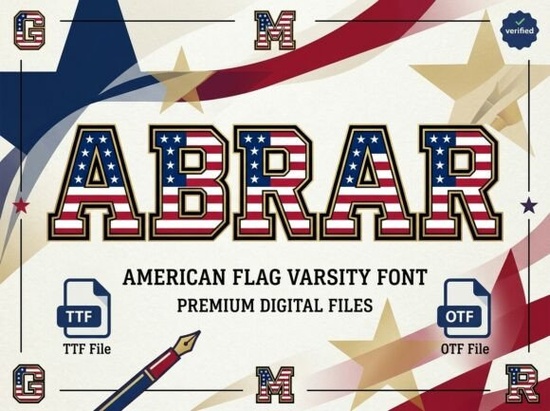
If you're looking for a bold, patriotic font that works well on t-shirts, banners, or event posters especially around the Fourth of July or veteran appreciation campaigns you’ll want to take a closer look at Abrar Font. It’s not just another blocky varsity typeface. What sets it apart is how the American flag pattern is thoughtfully built into each letterform not as a background overlay or clipart effect, but as part of the actual glyph design. That means clean scaling, crisp edges at any size, and no extra layers to manage in your design software.
When does Abrar Font work best?
Abrar shines where clarity and character matter at a glance: team jerseys, school spirit gear, military appreciation flyers, and small-batch apparel for local events. Because it’s a heavy-weight display font, it’s not meant for body text or long paragraphs but it holds up extremely well on fabric prints, vinyl decals, and large-format posters. Designers using it in Canva, Adobe Illustrator, or Cricut Design Space report smooth kerning and consistent spacing right out of the box.
You’ll also find it pairs naturally with simpler sans-serif fonts for supporting text think pairing Abrar for a headline like “USA Strong” with a clean, neutral font for event details underneath. Its athletic structure echoes classic college mascot fonts, but with a distinct national theme. If you’ve used fonts like the mascot college outline font, you’ll recognize the same confident, grounded rhythm but Abrar adds layered visual interest without sacrificing legibility.
How is it different from other patriotic or varsity fonts?
Many “flag-themed” fonts rely on textures, overlays, or clipart-style stars and stripes applied after the fact. Abrar avoids that. The flag motif is structural not decorative. Each capital A, B, R, and so on includes subtle red-and-blue stripe integration within the strokes themselves. That makes it more versatile for print-on-demand platforms where layered effects often don’t translate cleanly across garment types or mockup previews.
It’s also more intentional than general-purpose bold fonts those tend to be neutral or abstract, while Abrar carries clear thematic weight. And unlike distressed or weathered fonts (like those in our distressed creative font collection), Abrar feels strong and purposeful not worn or ironic. That matters when designing for veterans’ groups, youth sports leagues, or community parades where tone and respect are central.
If you’ve worked with cowboy varsity font before, you’ll notice Abrar shares that sturdy, no-nonsense silhouette but swaps western motifs for patriotic ones. Both are display fonts first, meant to anchor a design, not fade into the background.
Who uses Abrar Font and why?
Small businesses selling holiday merchandise often pick Abrar early in their seasonal planning. It converts well on product thumbnails because the flag detail reads clearly even at smaller sizes. Crafters making iron-on transfers appreciate how cleanly the letters cut on vinyl no jagged edges or thin interior lines that might lift during weeding.
Print-on-demand sellers tell us they use it most for Fourth of July collections, but also year-round for veteran-owned business branding or high school ROTC materials. One designer shared that she combined Abrar with simple vector eagles and minimal color palettes (just red, white, navy, and off-white) to keep designs scalable across mugs, tote bags, and stickers without needing separate versions for each product.
- Test spacing: While kerning is well-tuned, some combinations (like “AV” or “RA”) benefit from minor manual adjustment especially if you’re setting tight headlines for embroidery or small labels.
- Stick to uppercase: The font is optimized for all-caps usage. Lowercase letters aren’t included, so plan your layout accordingly.
- Pair wisely: Try it with a clean, medium-weight sans-serif (like Montserrat or Open Sans) for subheads or captions avoid competing decorative fonts that dilute its impact.